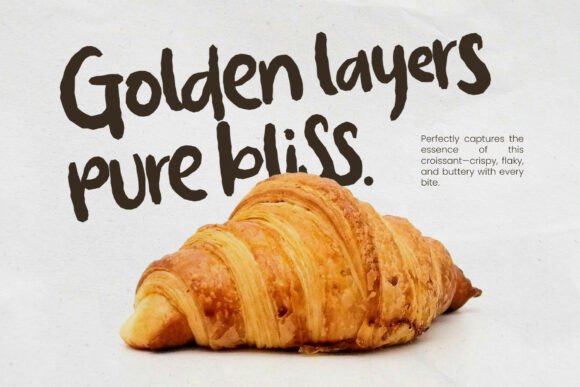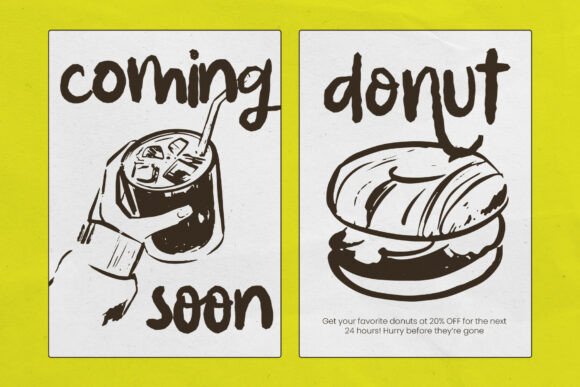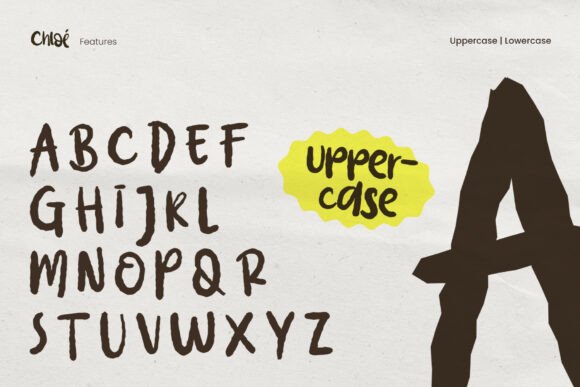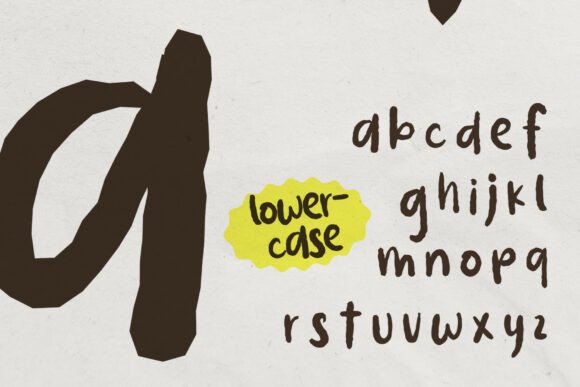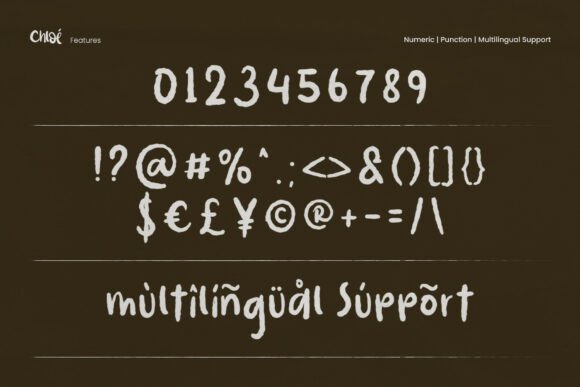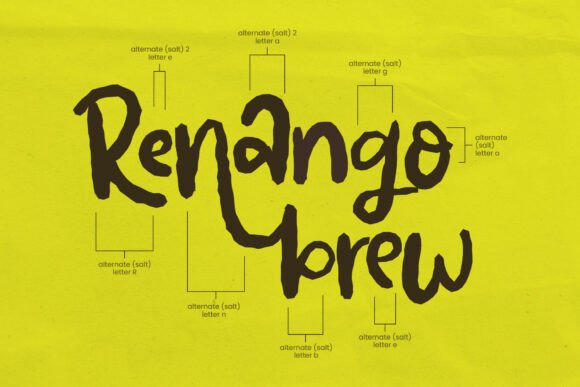
Introducing Chloe Font: A Striking, Bold Hand-Drawn Typeface
In the world of typography, few fonts manage to capture attention with the same level of vibrancy and energy as Chloe Font. This stunning, hand-drawn display typeface boasts a distinctly textured, almost brush-like appearance, giving each letter a handcrafted and authentic feel that’s hard to ignore. Whether you’re a designer, crafter, or simply someone who appreciates the art of typography, Chloe Font is sure to leave a lasting impression.
The Unique Characteristics of Chloe Font
So, what sets Chloe Font apart from other typefaces? For starters, its bold weight and fluid strokes make it highly expressive and impactful. The font’s textured appearance gives it a organic, hand-crafted feel that’s perfect for designs that aim to convey a sense of fun, creativity, or casual charm. Whether you’re working on a branding project for a cafe, artisanal product, or children’s goods, Chloe Font is an excellent choice.
Perfect for Creative and Playful Designs
Chloe Font is ideal for designs that require a strong, personable statement. Its unique style is perfect for adding a touch of bold, artistic flair and a lively personality to any project. Imagine using Chloe Font for a headline or poster – it’s sure to grab attention and leave a lasting impression. Similarly, the font would excel in social media graphics, where a strong visual identity is crucial for standing out in a crowded online landscape.
Why Designers and Crafters Love Chloe Font
Designers and crafters alike will appreciate the versatility and creative freedom that Chloe Font offers. The font’s bold, hand-drawn aesthetic makes it perfect for a wide range of applications, from branding and advertising to packaging and editorial design. Whether you’re working on a digital project or a print-based design, Chloe Font is sure to add a touch of personality and whimsy.
Key Features of Chloe Font
- Bold and expressive: Chloe Font features a bold weight and fluid strokes, making it highly expressive and impactful.
- Hand-drawn aesthetic: The font’s textured, hand-drawn appearance gives each letter a unique, authentic feel.
- Perfect for creative designs: Chloe Font is ideal for designs that aim to convey a sense of fun, creativity, or casual charm.
- Versatile: The font is suitable for a wide range of applications, from branding and advertising to packaging and editorial design.
Tips for Using Chloe Font Effectively
To get the most out of Chloe Font, here are a few tips to keep in mind:
- Use it sparingly: Due to its bold and expressive nature, Chloe Font is best used sparingly to avoid overwhelming the design.
- Pair it with complementary fonts: Chloe Font pairs well with clean, sans-serif fonts that provide a nice contrast to its bold, hand-drawn aesthetic.
- Experiment with colors and textures: The font’s textured appearance lends itself well to creative experimentation with colors and textures.
In conclusion, Chloe Font is a striking, bold hand-drawn typeface that’s sure to capture attention and leave a lasting impression. Its unique characteristics, versatility, and creative freedom make it an excellent choice for designers and crafters looking to add a touch of personality and whimsy to their designs. Whether you’re working on a branding project, poster, or social media graphic, Chloe Font is a great option to consider.